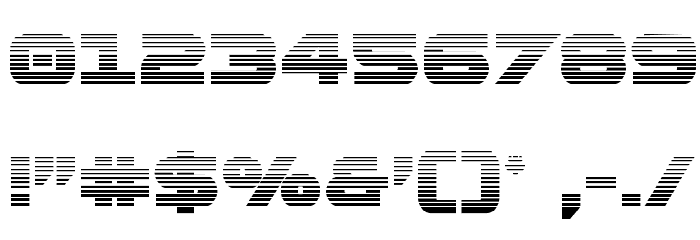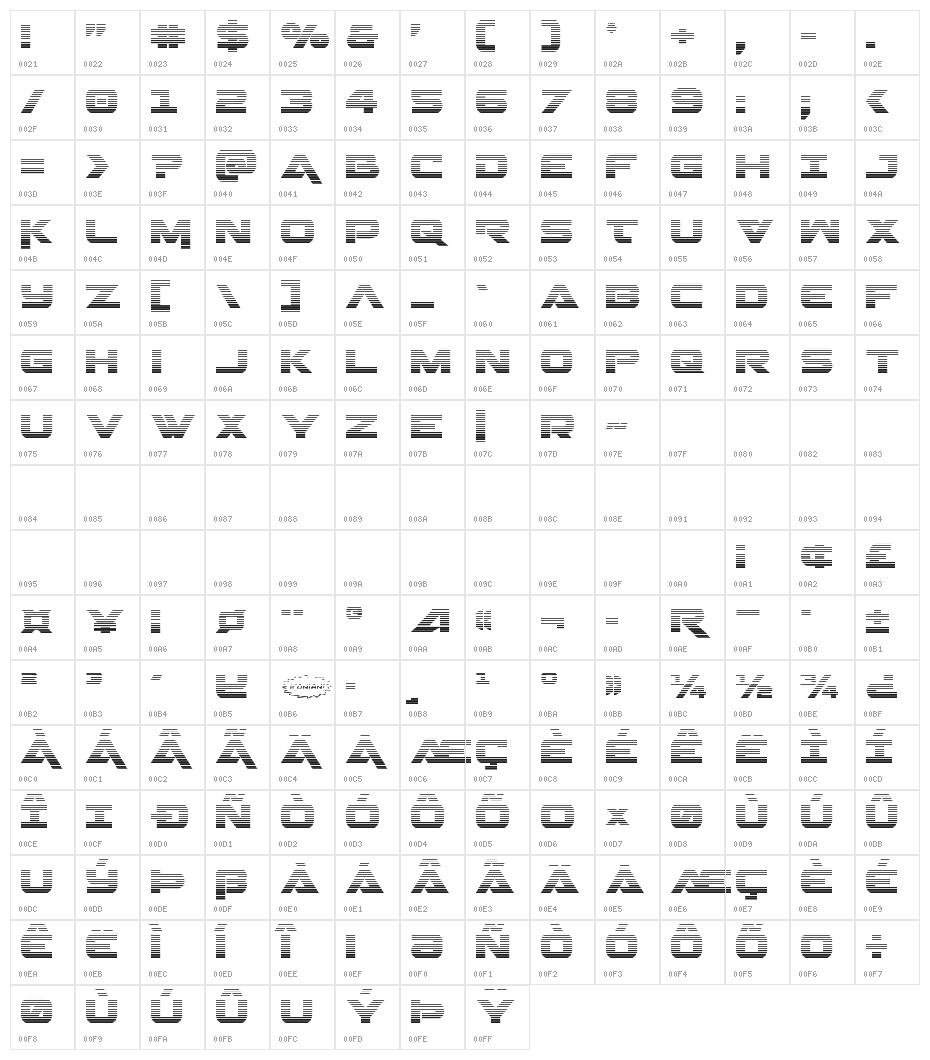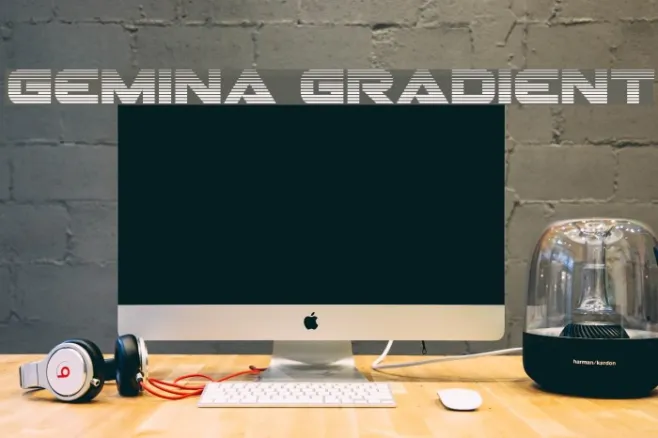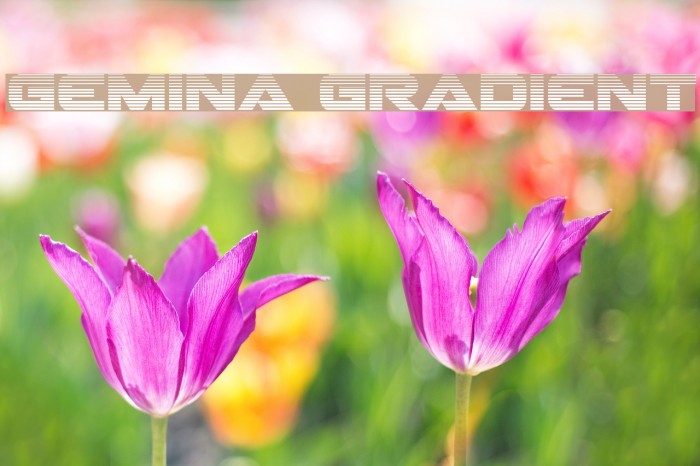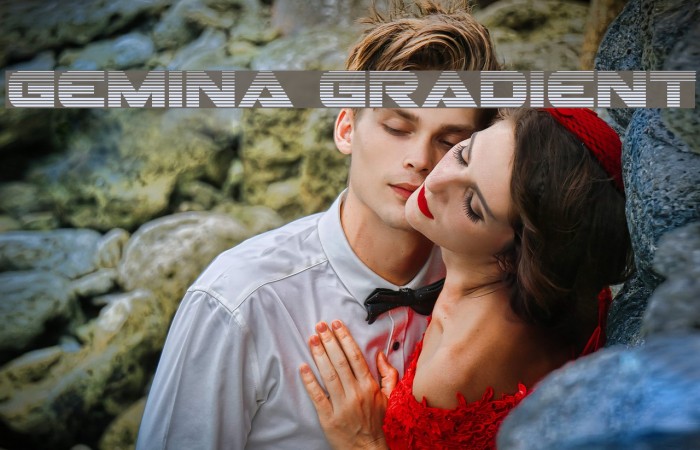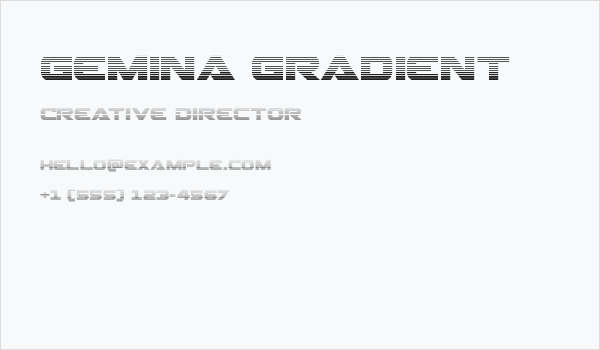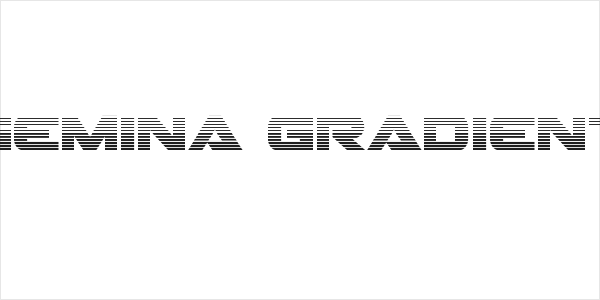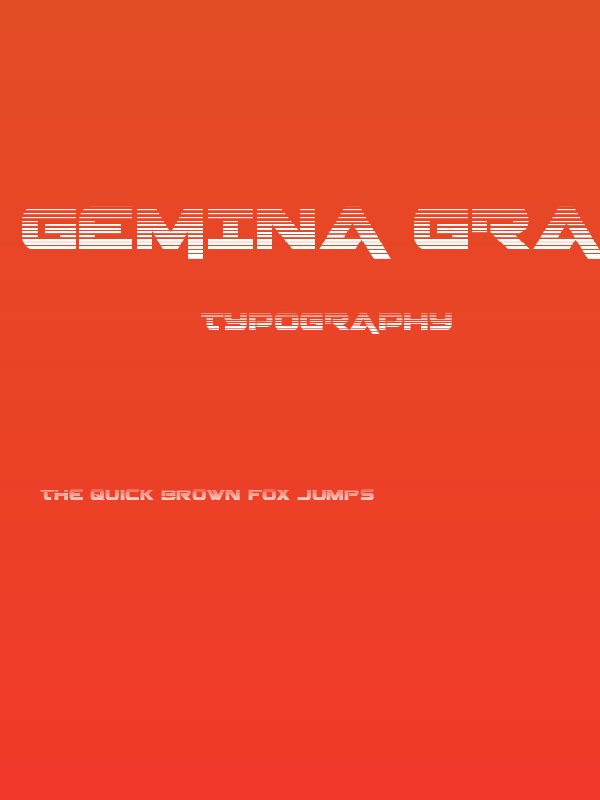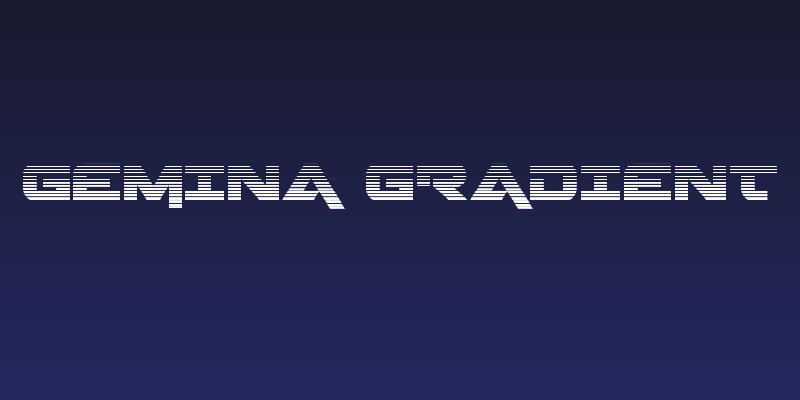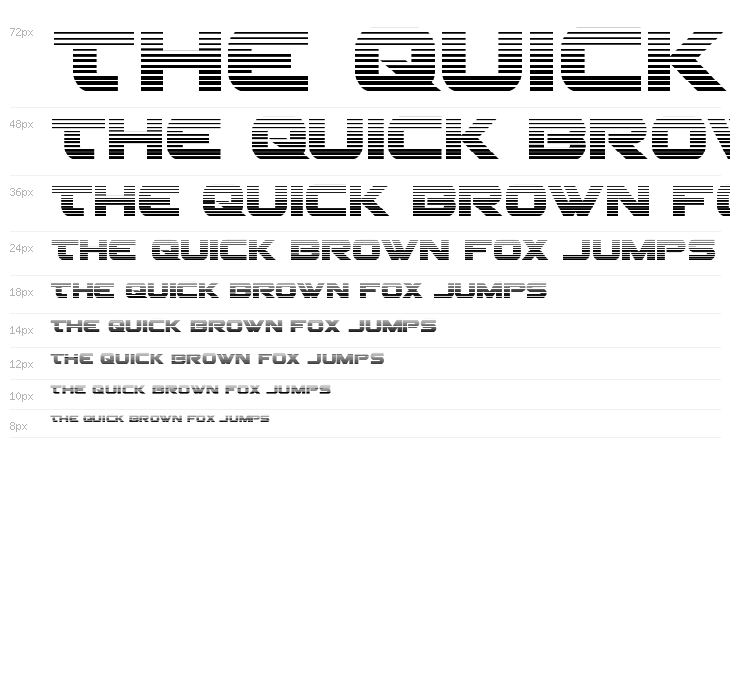
Gemina Gradient Font
Gemina Gradient Description
This font features a unique, futuristic design characterized by horizontal lines that create a gradient effect within each character. The uppercase letters are bold and angular, giving a sense of movement and dynamism. The lowercase letters maintain this style, ensuring consistency across the typeface. Numbers and special characters are also designed with the same horizontal line pattern, making them visually cohesive with the letters. The overall appearance is modern and eye-catching, suitable for projects that require a distinctive and innovative look.